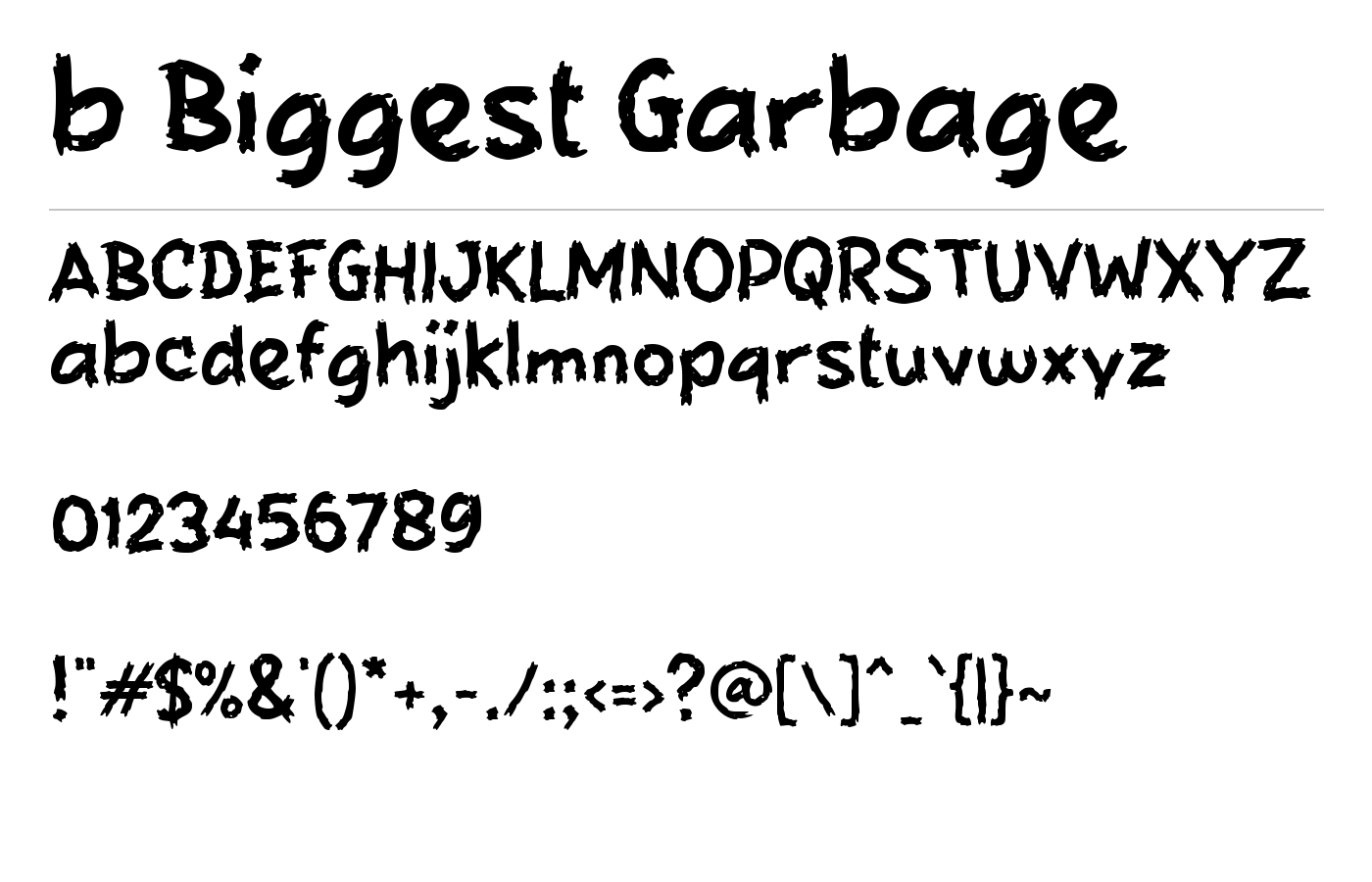
b Biggest Garbage Font is an informal, hand-drawn sans serif typeface with a rough, textured appearance that mimics brush strokes or painted lettering. Its bold weight, irregular shapes, and lively, slightly messy style give it a playful and casual personality, making it ideal for creative projects, posters, or designs that want to convey a raw, energetic vibe. This font works best in headlines or display use where its distinct, expressive character can stand out clearly.
b Biggest Garbage Font
About b Biggest Garbage Font